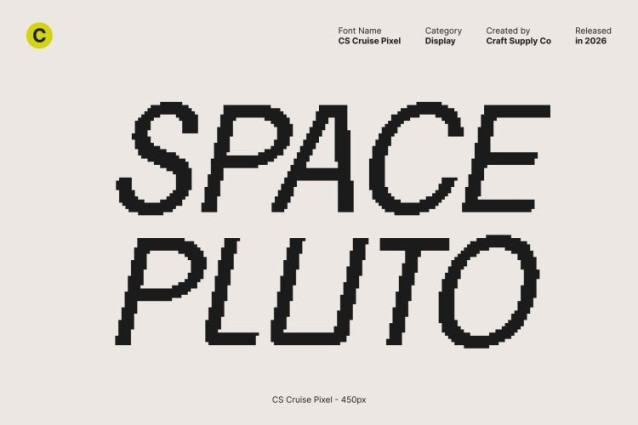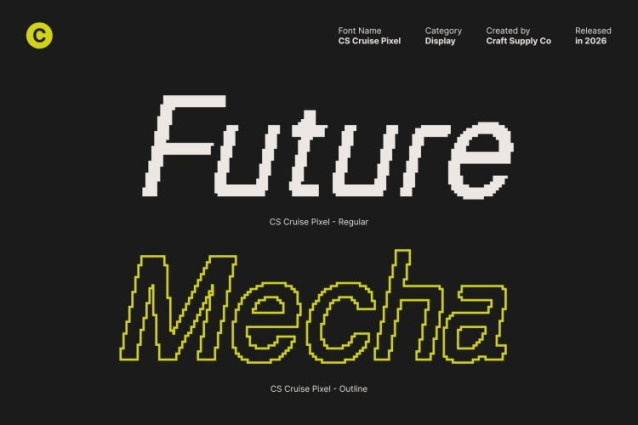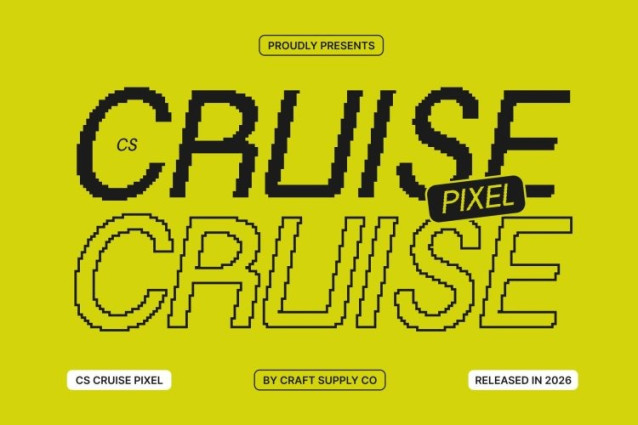
CS Cruise Pixel Font This is a modern sans-serif font reimagined through a pixel-based design, blending contemporary clarity with an old-digital character. Its structured pixel forms give the font a distinctive retro-tech feel while maintaining a clean and modern appearance. This combination creates a fresh visual identity that feels both nostalgic and forward-looking, perfect for designs inspired by digital culture.
Clean, Minimalist Design with Retro Digital Nuance
Built on a minimalist foundation, this font features crisp pixel edges and balanced proportions that enhance its modern aesthetic. The pixel detailing adds a subtle 8-bit influence, evoking classic digital screens and early computer graphics while preserving readability and elegance. The result is a font that feels sleek, orderly, and visually engaging.
Perfect for Modern and Retro-Inspired Designs
This font is ideal for projects that merge modern design with retro digital vibes. Whether used for branding, websites, posters, or digital interfaces, this font delivers a contemporary look enriched with pixel character. It works especially well for tech themes, creative studios, gaming visuals, and modern layouts that want a nostalgic digital twist.
Enhance Your Designs with Pixelated Elegance
From sleek corporate identities to stylish editorial and digital projects, this font helps guide your designs with confidence and clarity. Its modern sans-serif structure combined with pixel aesthetics makes it a versatile and eye-catching choice offering contemporary elegance wrapped in timeless digital charm.